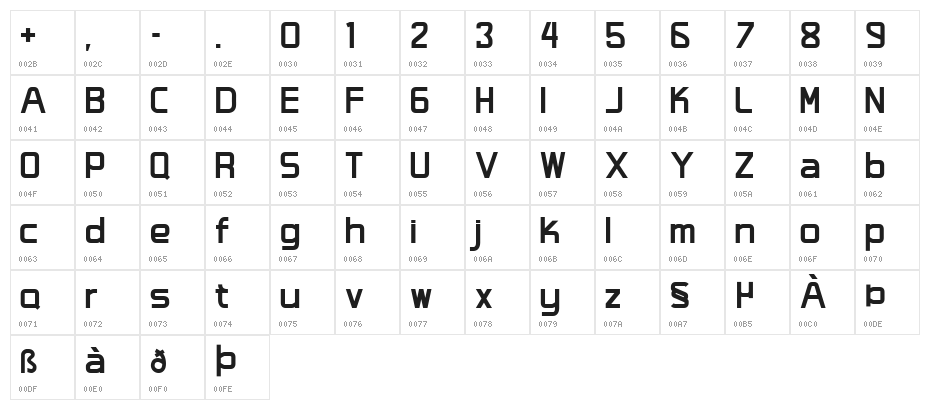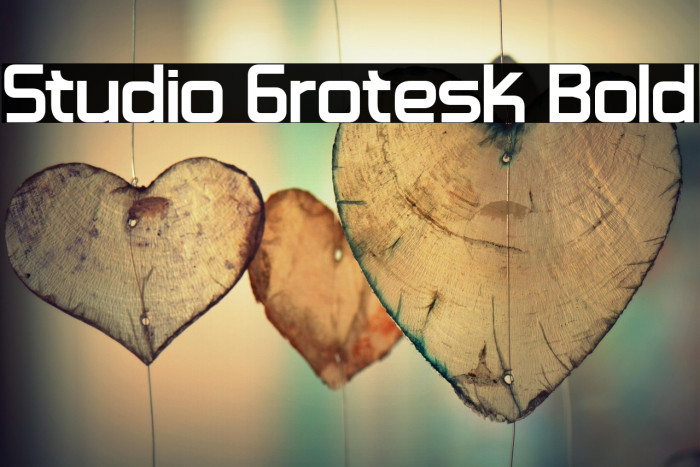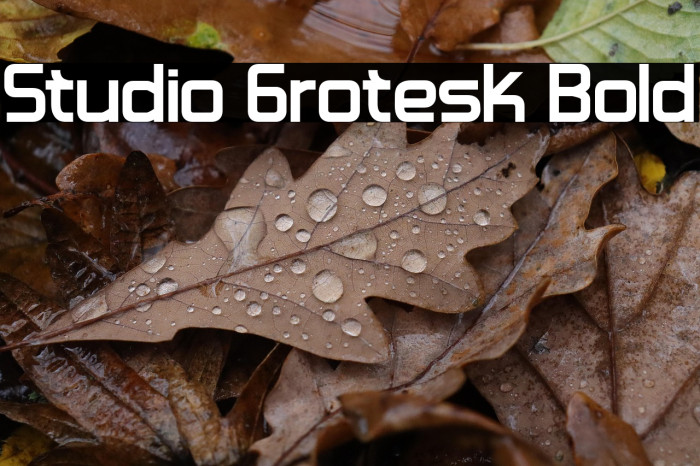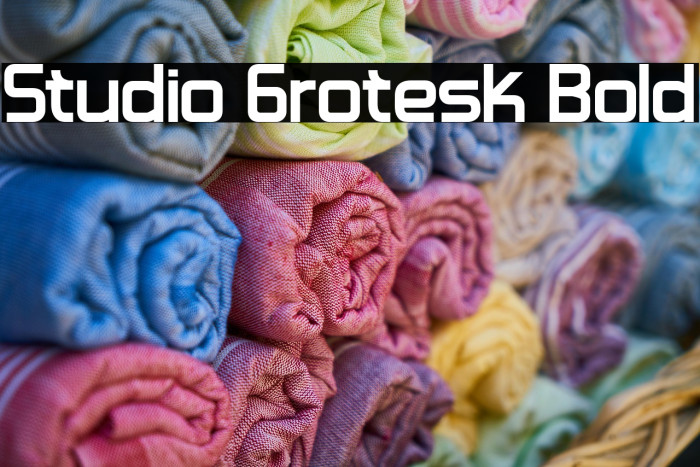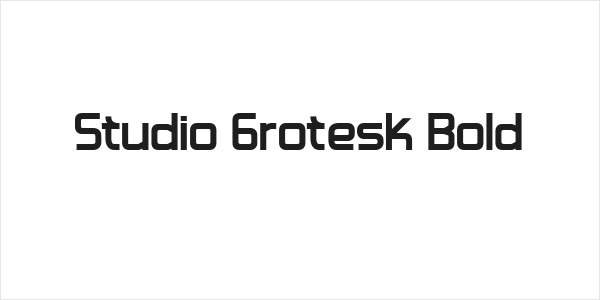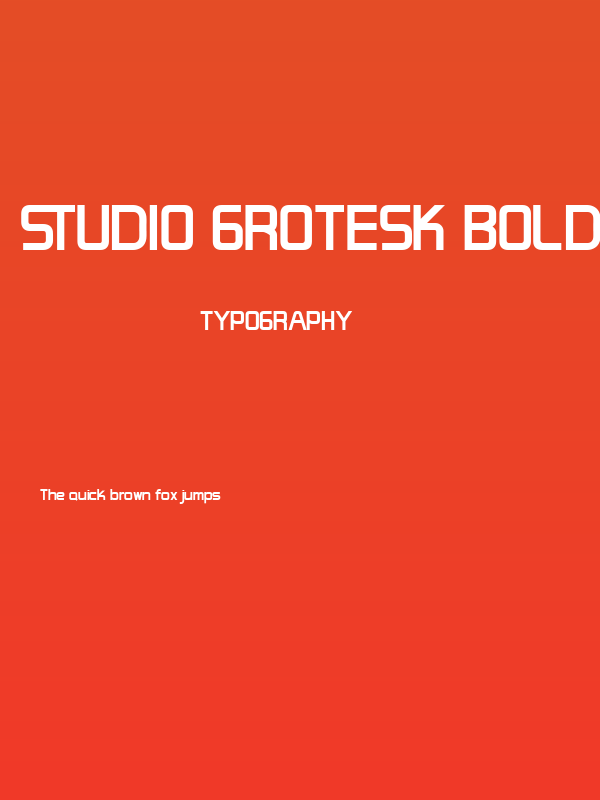
Studio Grotesk Bold Font
Studio Grotesk Bold Description
This font features a bold and modern design with a geometric structure. The characters are clean and straightforward, with a uniform stroke width that gives it a strong and confident appearance. The uppercase letters are particularly striking, with sharp angles and a consistent height that create a cohesive look. The lowercase letters maintain the same geometric style, offering a harmonious blend with the uppercase set. The numerals are clear and easy to read, making them suitable for various applications. Special characters are included, maintaining the same bold and structured aesthetic. Overall, this font exudes a contemporary and professional vibe, ideal for making a strong visual impact.
| Proposed Projects | Ideal for branding, headlines, posters, and digital media where a strong, modern presence is desired. |